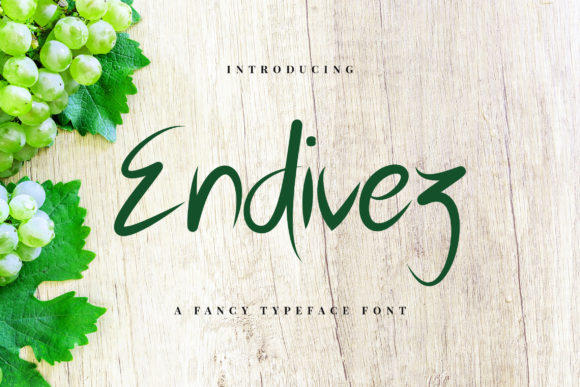
Step into the realm of captivating artistry with Endivez Font, a script masterpiece that breathes life into your creative endeavors. Its graceful curves and playful strokes conjure a sense of elegance and charm, leaving an ineffaceable mark on your designs. Handcrafted by the skilled artisans at Risegraph, Endivez Font embodies the essence of modern calligraphy, effortlessly blending simplicity and sophistication.
With its clean lines and relaxed style, Endivez Font is the perfect choice for adding a touch of personality to your projects. Whether you're crafting logos, invitations, or social media posts, this font will elevate your designs to new heights. Its versatility shines through in its adaptability to a wide range of styles, from classic to contemporary, making it a must-have in any designer's toolkit.
Endivez Font's hand-drawn charm adds a personal touch to your creations, evoking a sense of authenticity and connection. Its organic flow and expressive characters bring a touch of whimsy and artistry to your designs, ensuring that they stand out from the crowd. Let your imagination soar as you explore the limitless possibilities of Endivez Font, transforming your ideas into stunning visual masterpieces.
Embrace the allure of Endivez Font and embark on a creative journey like no other. Its versatility and captivating beauty will leave you spellbound, while its ease of use makes it accessible to designers of all levels. Experience the magic of Endivez Font today and unlock the full potential of your creativity.